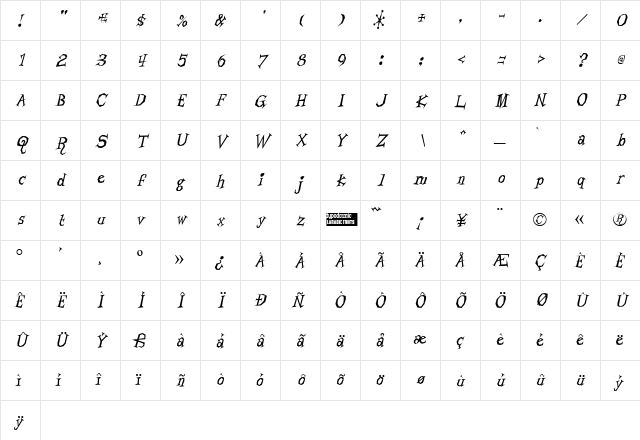
Living by Numbers Regular Free Font
Living by Numbers Regular
Design Context for Living by Numbers
Living by Numbers is a composed and adaptable typeface that performs quietly and consistently across a wide range of design contexts.